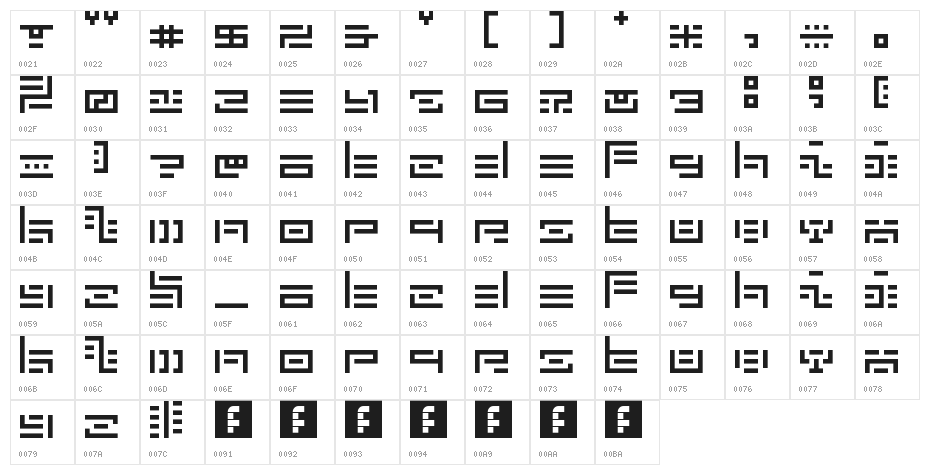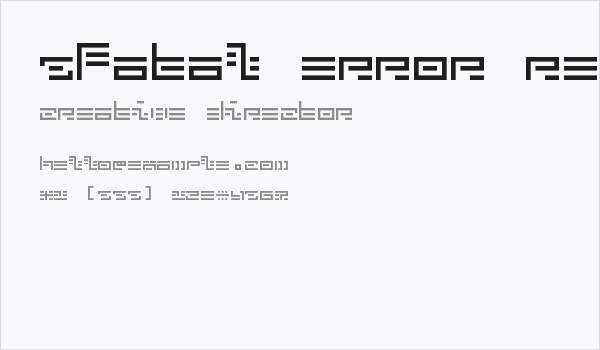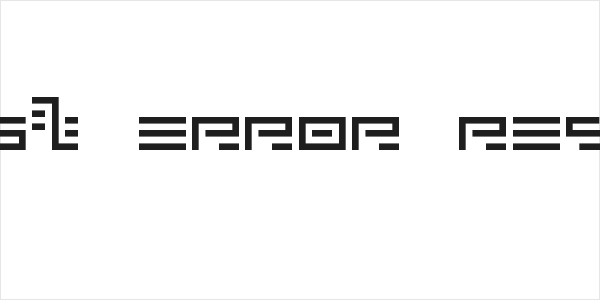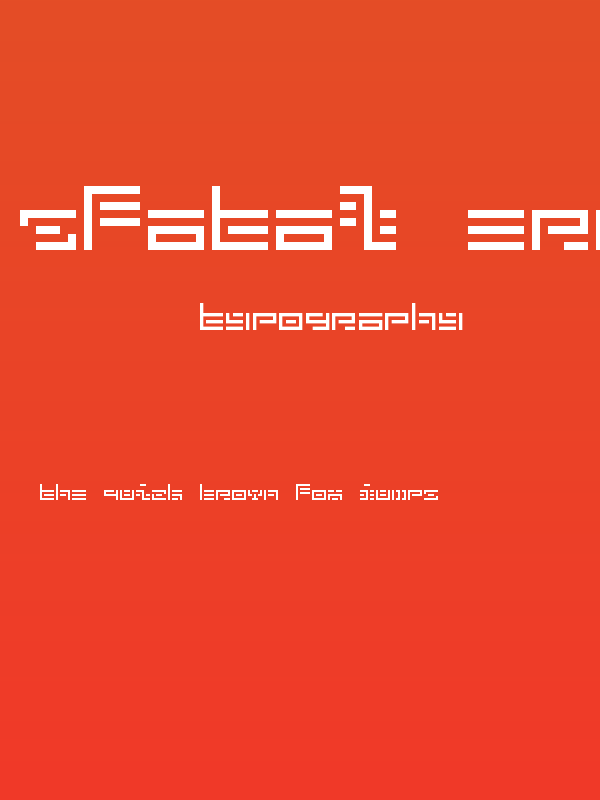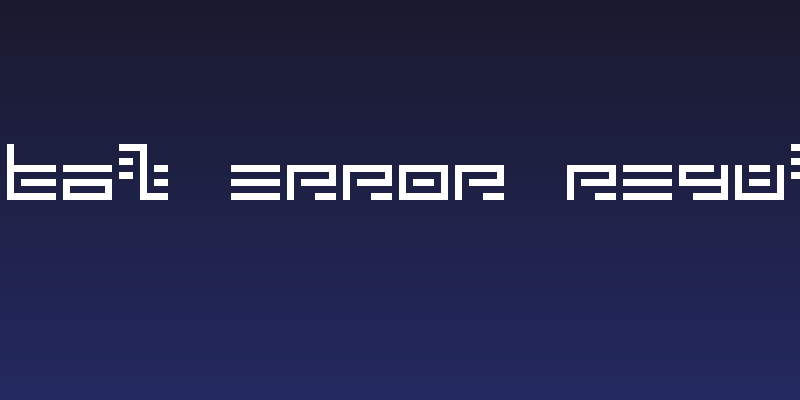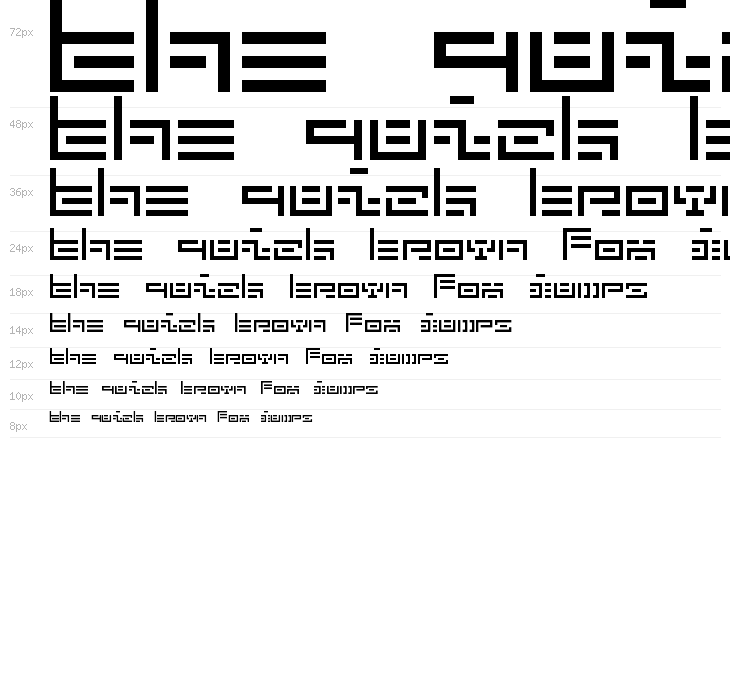
5Fatal Error Regular Font
5Fatal Error Regular Description
This font features a highly geometric and futuristic design, characterized by its blocky and angular letterforms. Each character is constructed with a series of straight lines and right angles, giving it a digital and mechanical appearance. The uniformity in stroke width across all characters contributes to a cohesive and structured look. The font's unique style is reminiscent of digital displays or retro video game aesthetics, making it stand out with its bold and distinctive presence. Its design is both modern and nostalgic, capturing the essence of early digital typography.
| Overall Style | Futuristic, Digital |
| Use Case | Logos, Posters, Headlines |
| Proposed Projects | Ideal for projects that require a digital or retro-futuristic theme, such as video game graphics, tech branding, or sci-fi movie posters. |